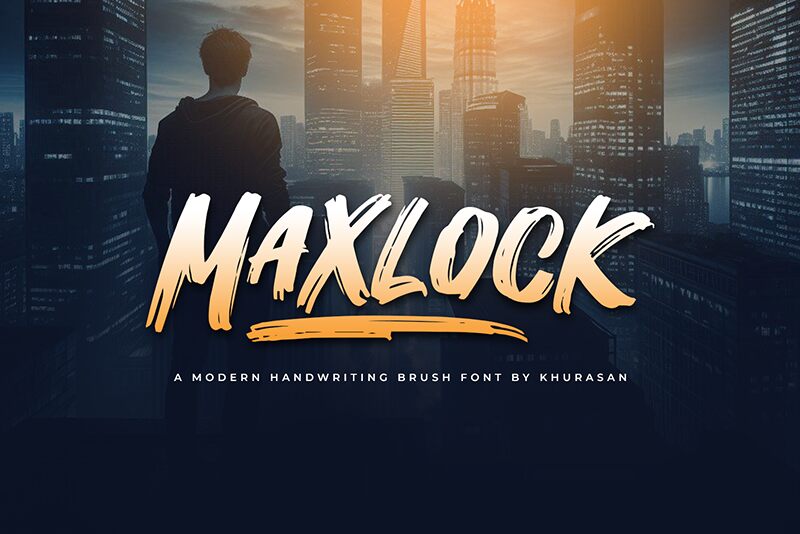
Maxlock
Maxlock font by Khurasan is a free bold brush font with a stylized script and edgy look. It’s highly expressive in its style, making it ideal for giving your design a contemporary appearance. The energetic personalities of the Maxlock characters will surely give any design an appealing, exciting look.